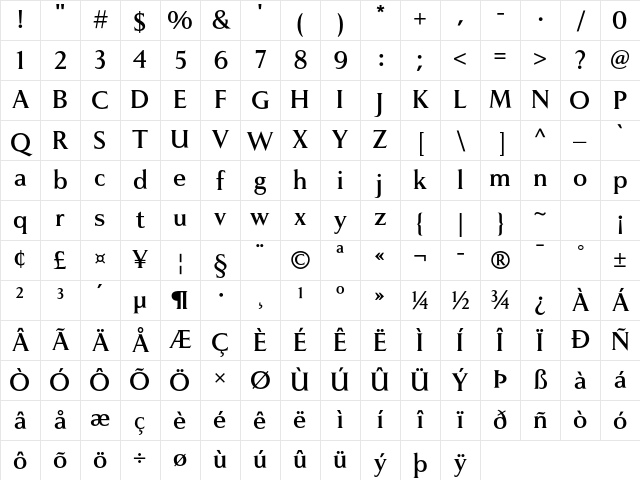
Pompei Std Regular
Pompei Std Family
Design Context for Pompei Std
Pompei Std is a composed and adaptable typeface that performs quietly and consistently across a wide range of design contexts.